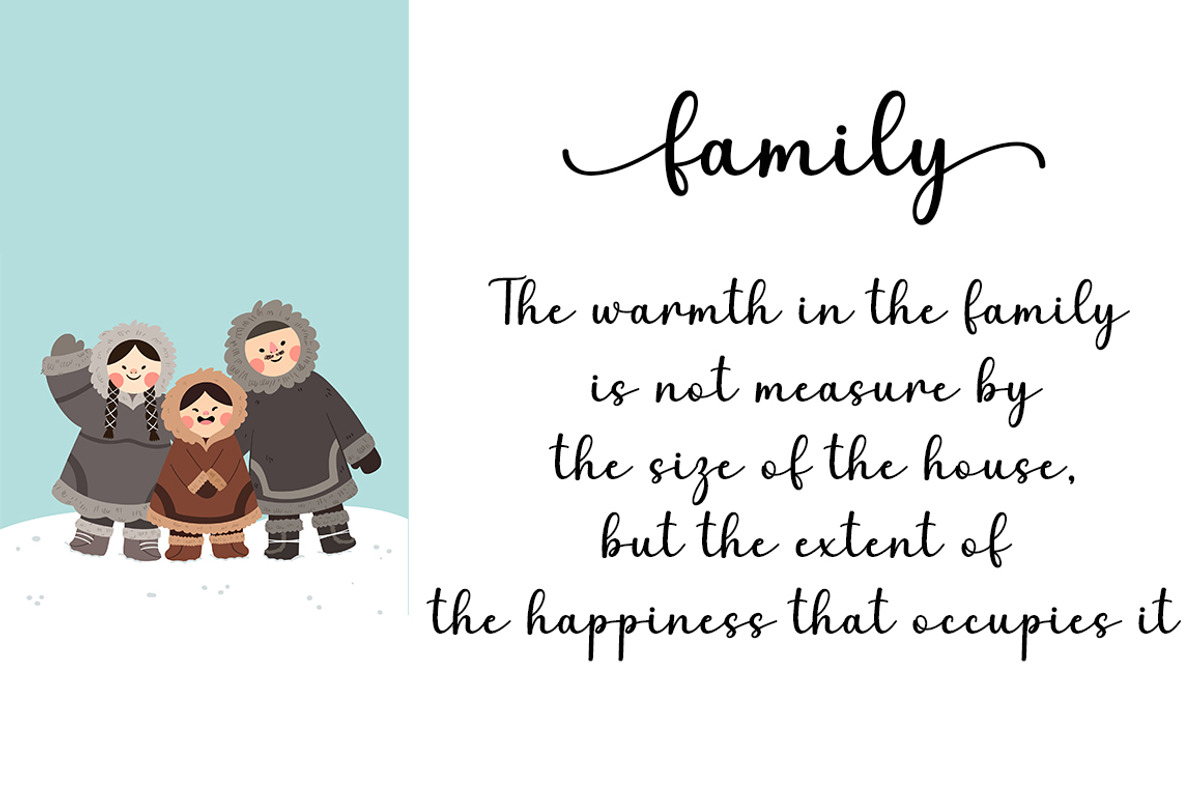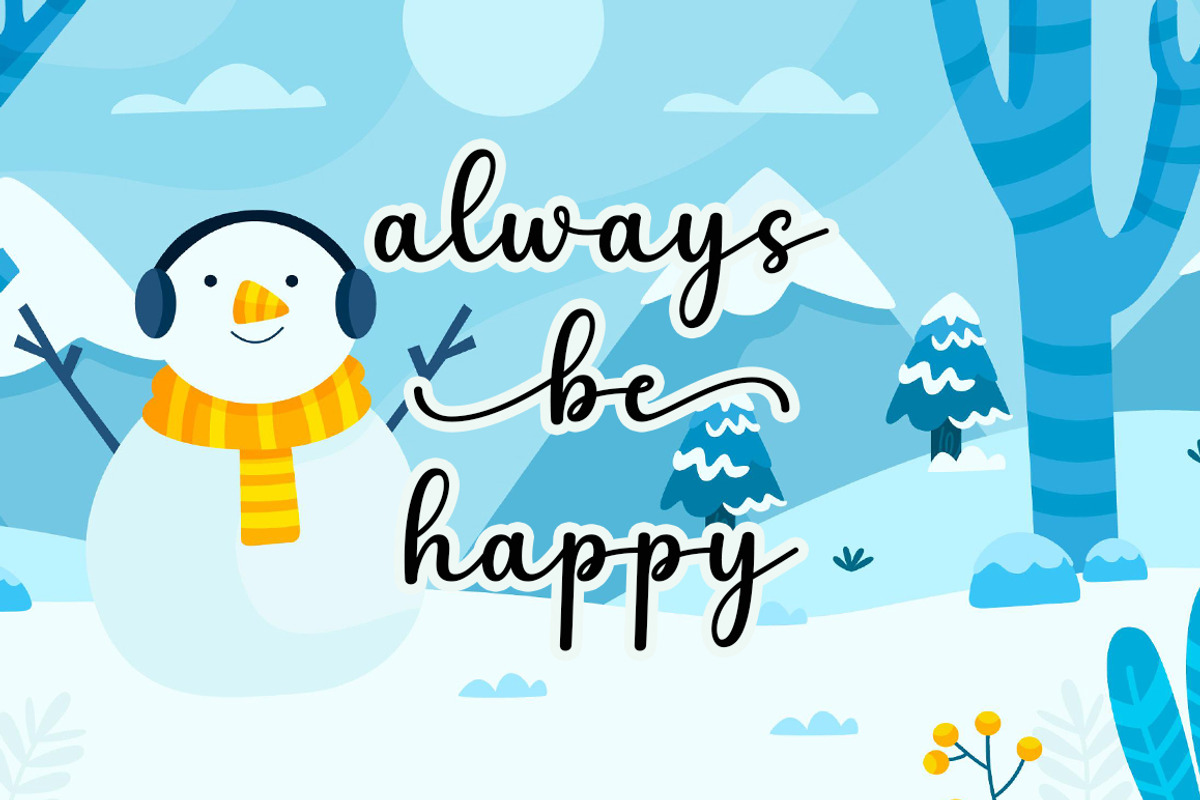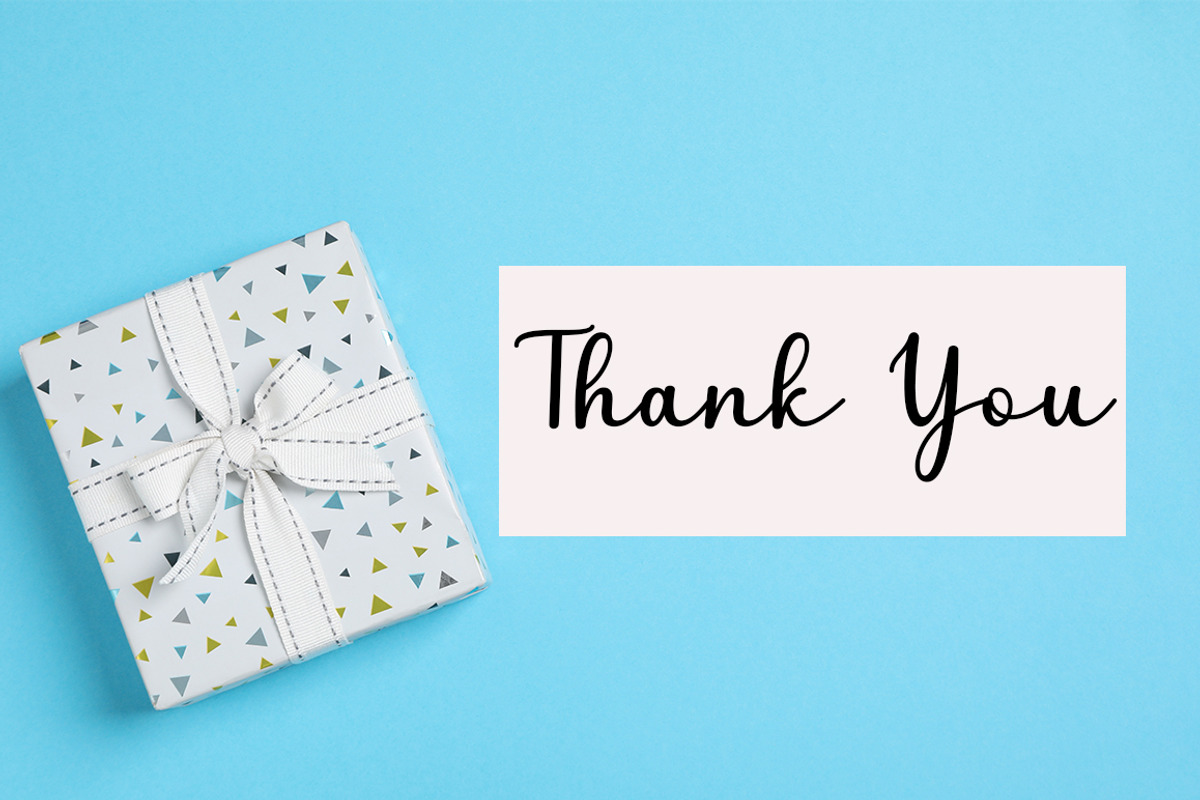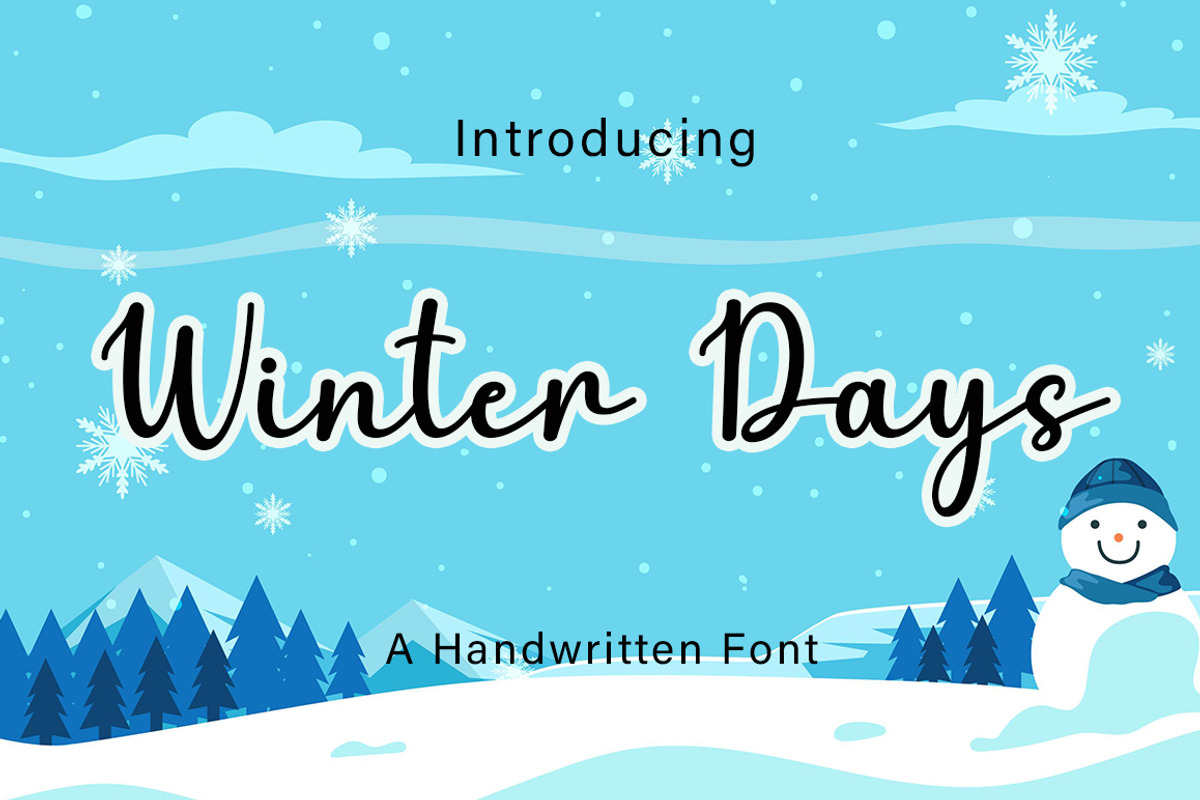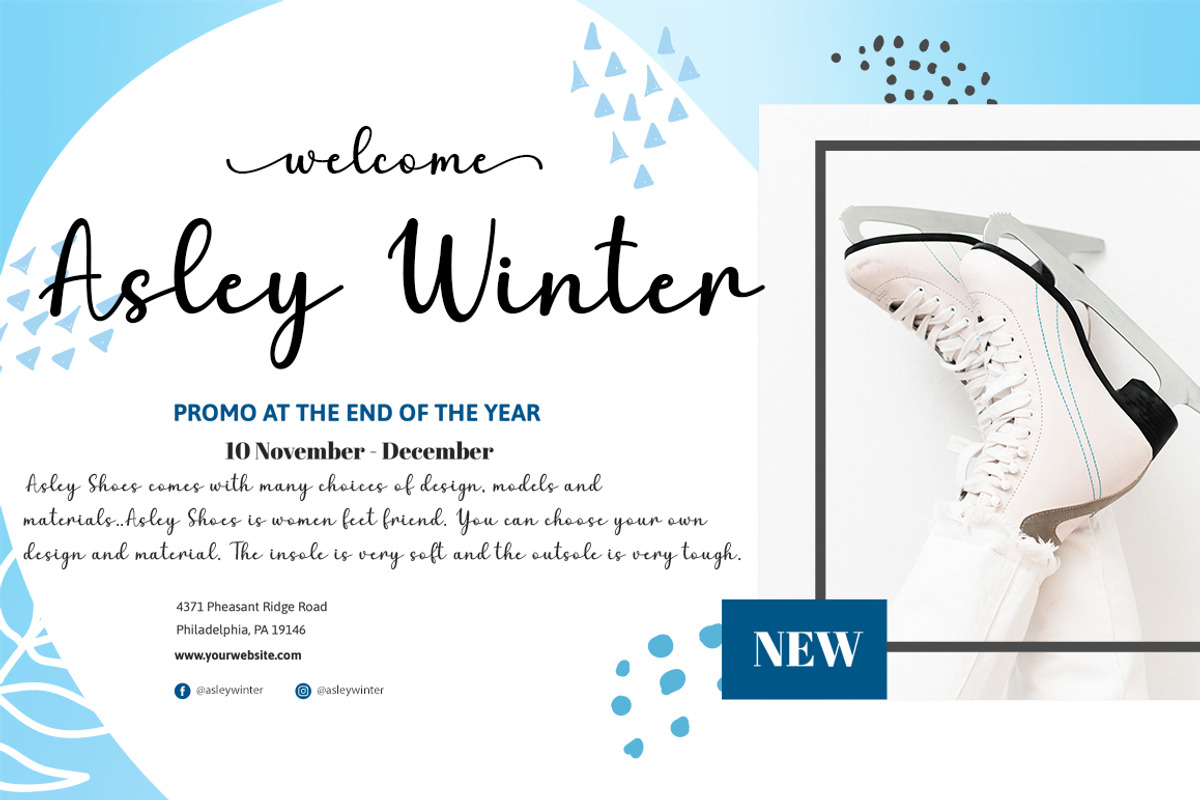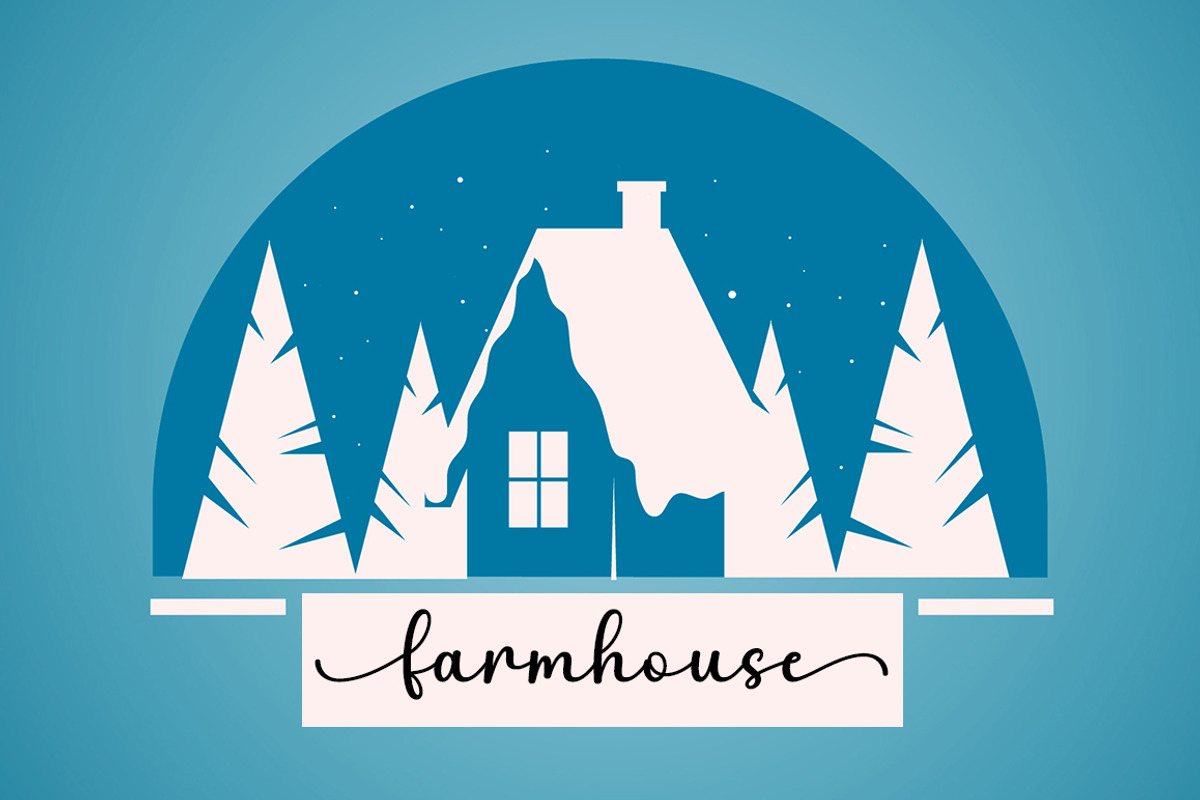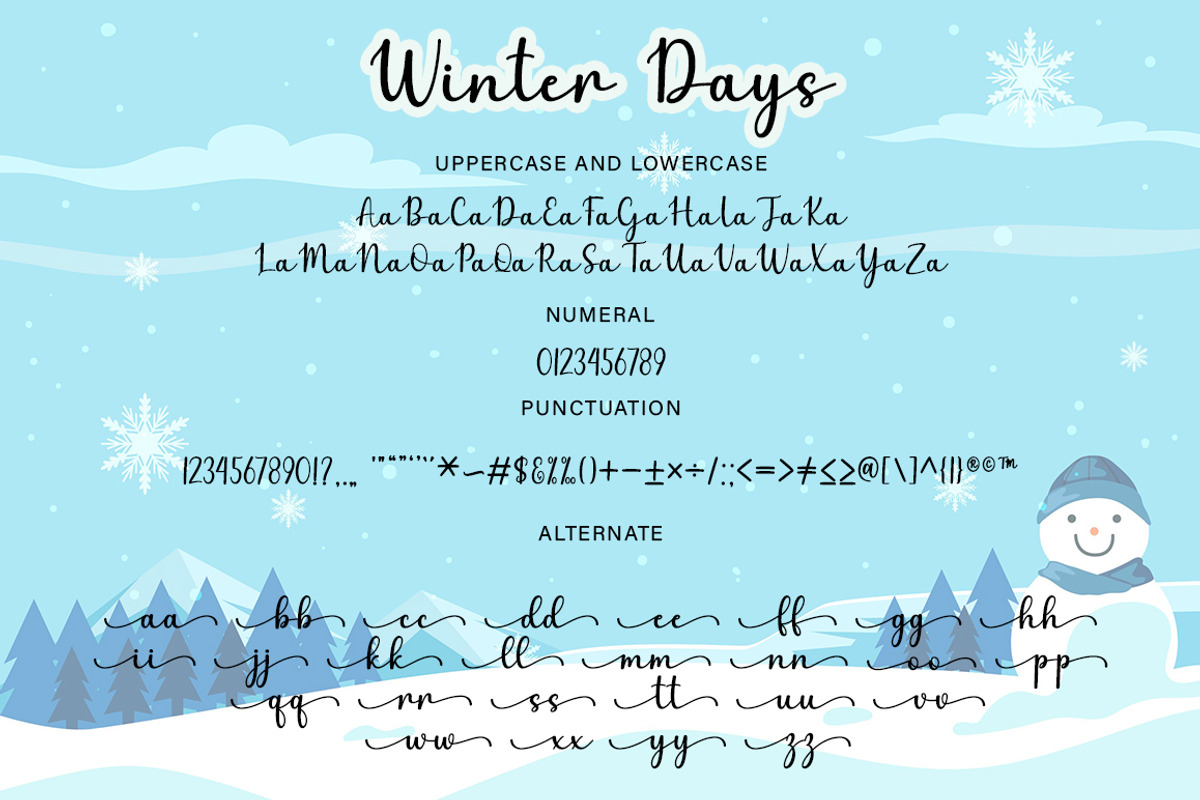
Winter Days
Winter Days is a stylish and incredibly elegant handwritten font. It looks stunning on wedding invitations, thank you cards, quotes, greeting cards, logos, business cards and every other design which needs a handwritten touch. This font is PUA encoded which means you can access all of the glyphs and swashes with ease!